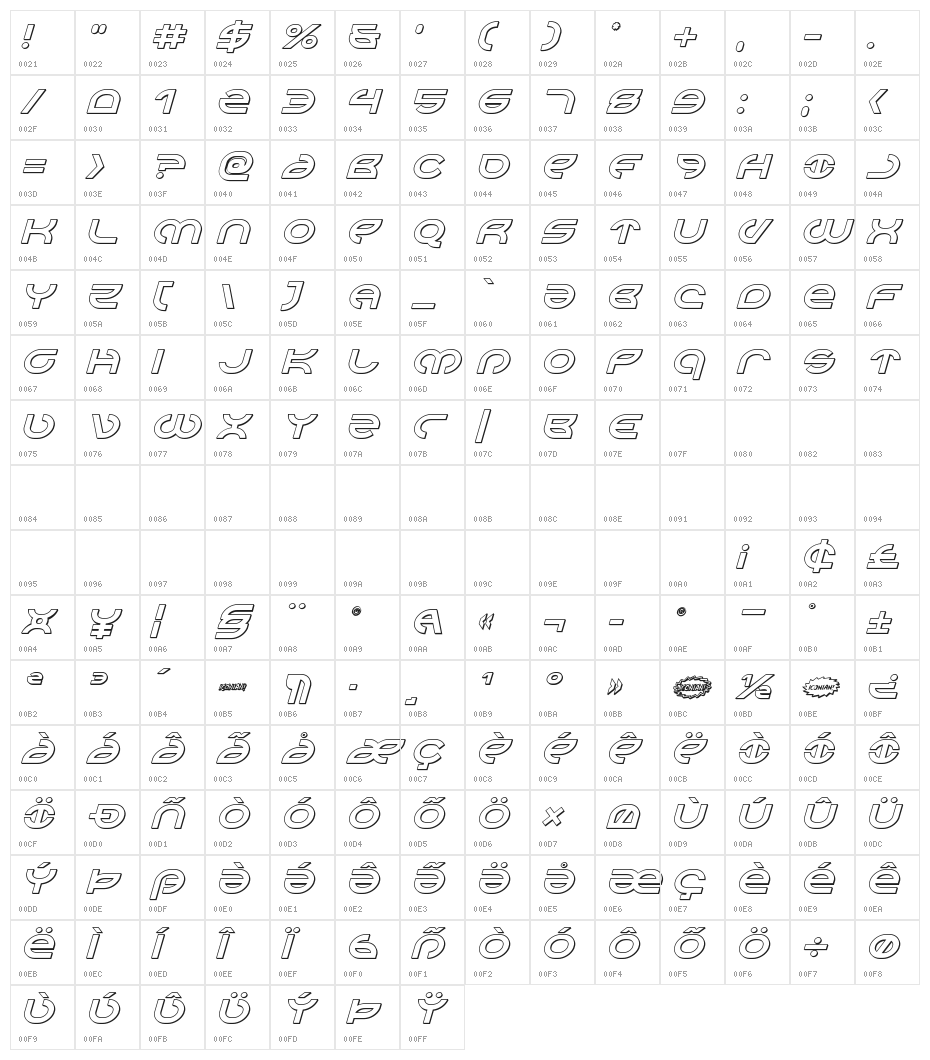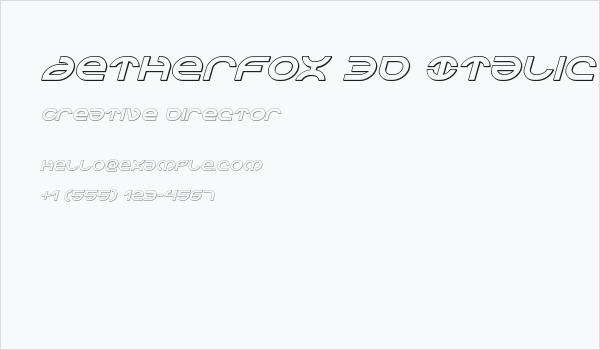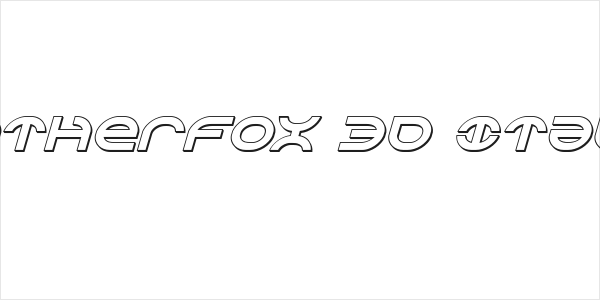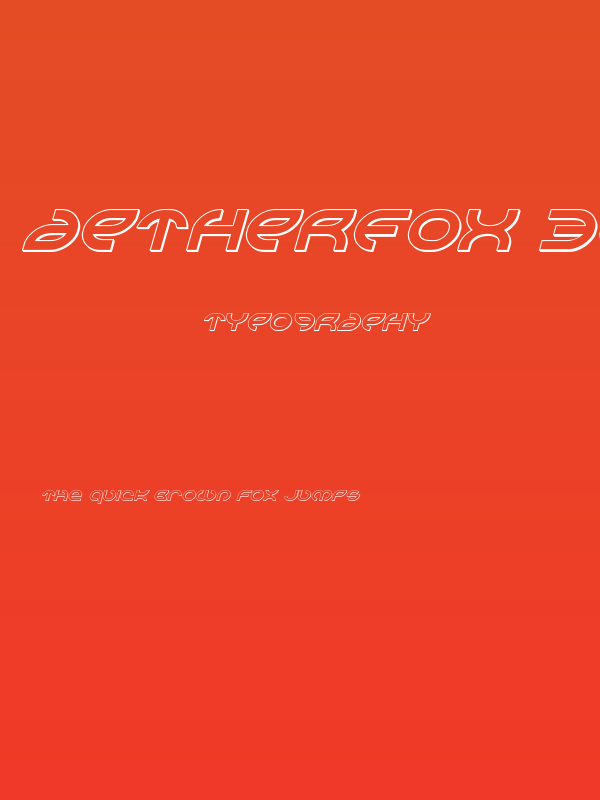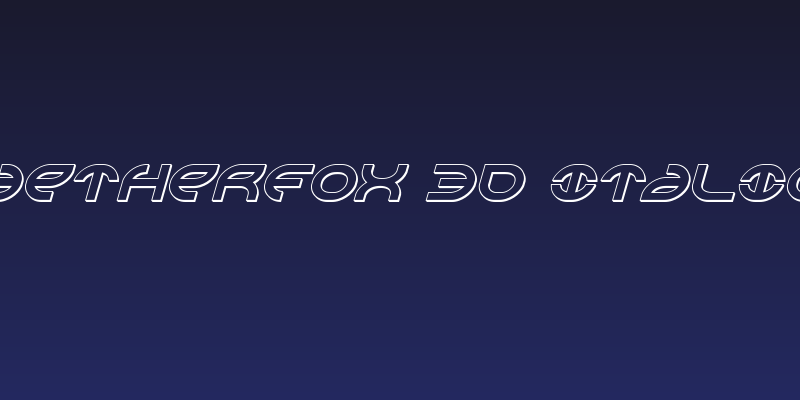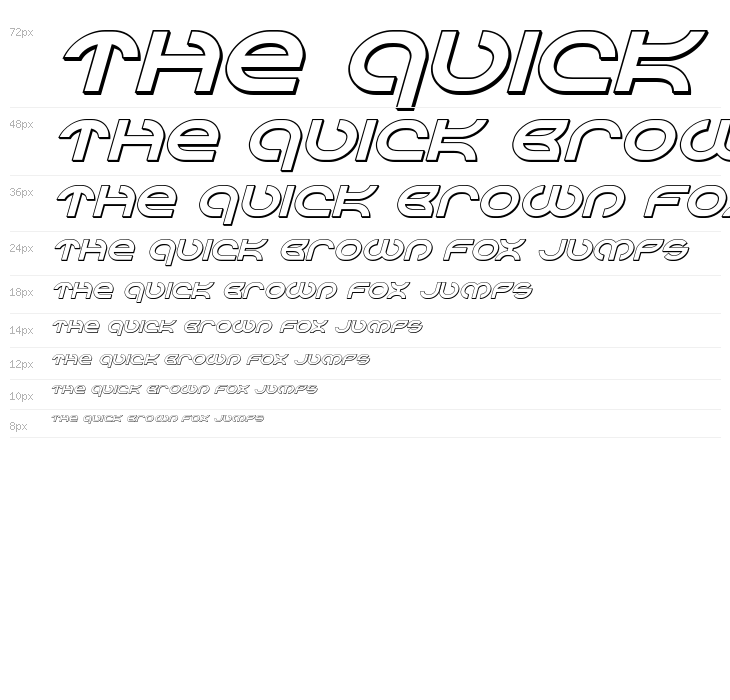
Aetherfox 3D Italic Font
Aetherfox 3D Italic Description
This font features a futuristic and dynamic design with a 3D effect that gives it a sense of depth and movement. The characters are outlined and have a sleek, italicized form, enhancing the sense of speed and modernity. Each letter is crafted with a unique geometric style, incorporating both sharp angles and smooth curves. The font maintains a consistent line thickness throughout, contributing to its uniform appearance. Its distinct style makes it suitable for creative and bold designs where a modern and eye-catching look is desired.
Proposed ProjectsIdeal for sci-fi themed projects, video game titles, tech branding, and futuristic posters.